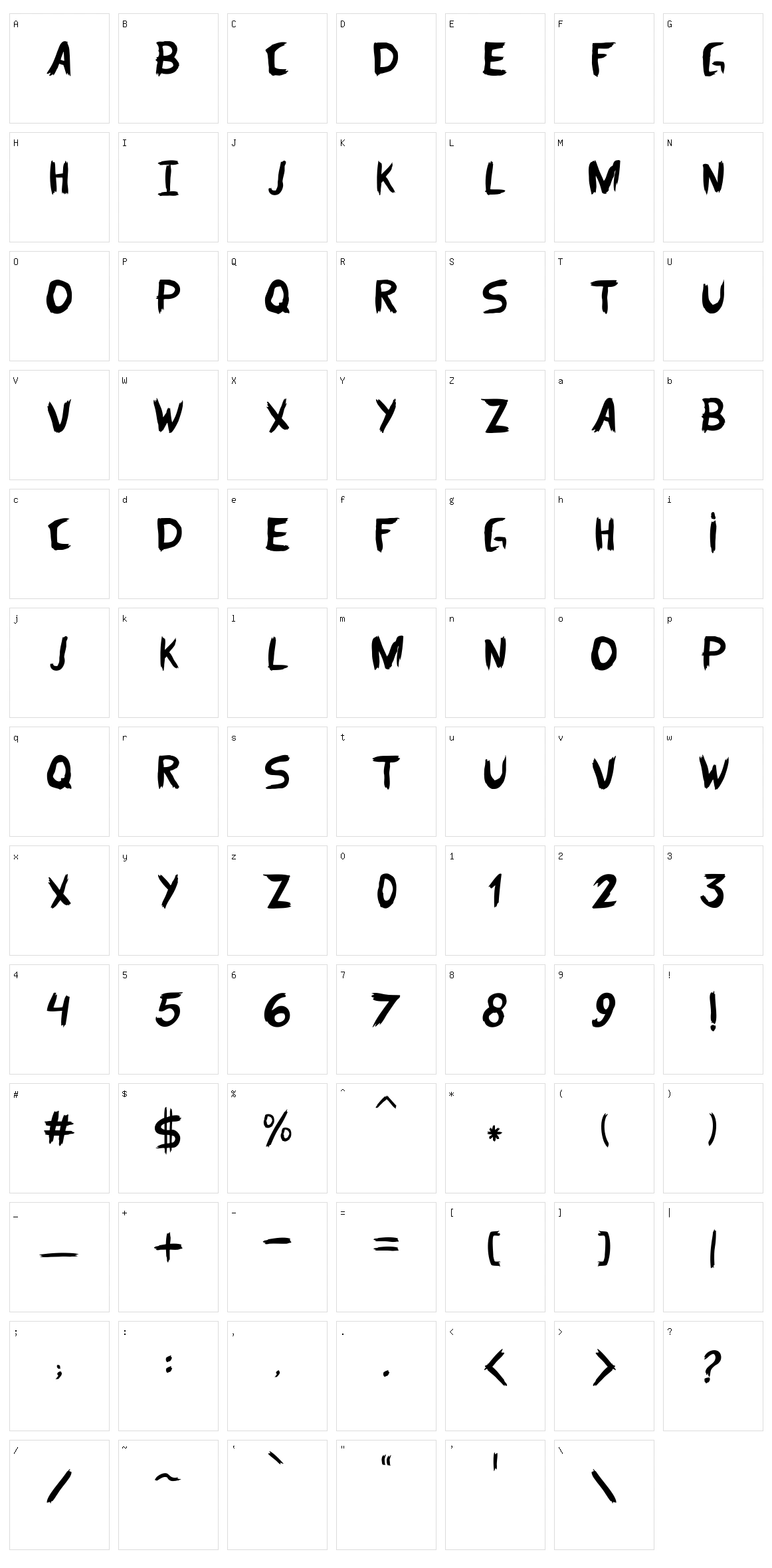
The free font Dom Parquim is carefully designed by Francine Pilotto, showcasing a thoughtful balance of creativity and usability and falls under the Script font style. When you download the ZIP file, it contains only 25.3 KB of font files, making it lightweight and quick to download. Please review the license details below to understand permitted usage and distribution rights. If license information is not available, we recommend using this font for personal projects only or contacting the author directly for commercial usage permissions.